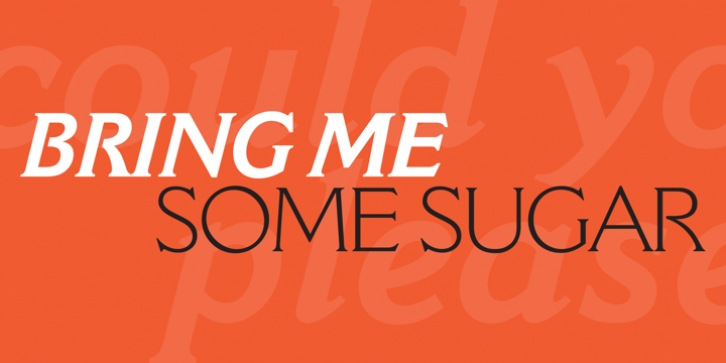
Characteristics of the stonecutters chisel are visible in the serif shapes of Cantoria, which Ron Carpenter designed for Monotype in 1986. Cantoria follows the American type designer T.M. Clelands Della Robbia (1902), also based on stone-cut letters. Round, open counters, large capitals, and a wide range of weights make it a good choice for a variety of display settings.